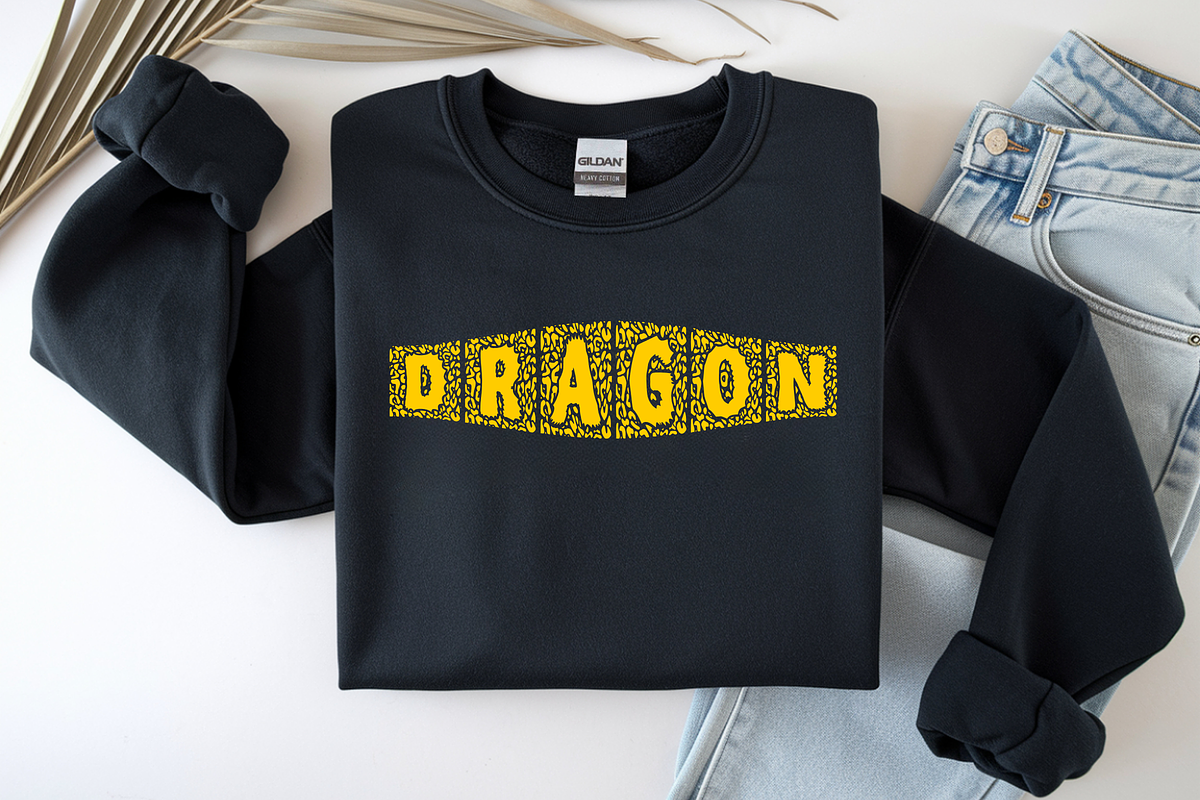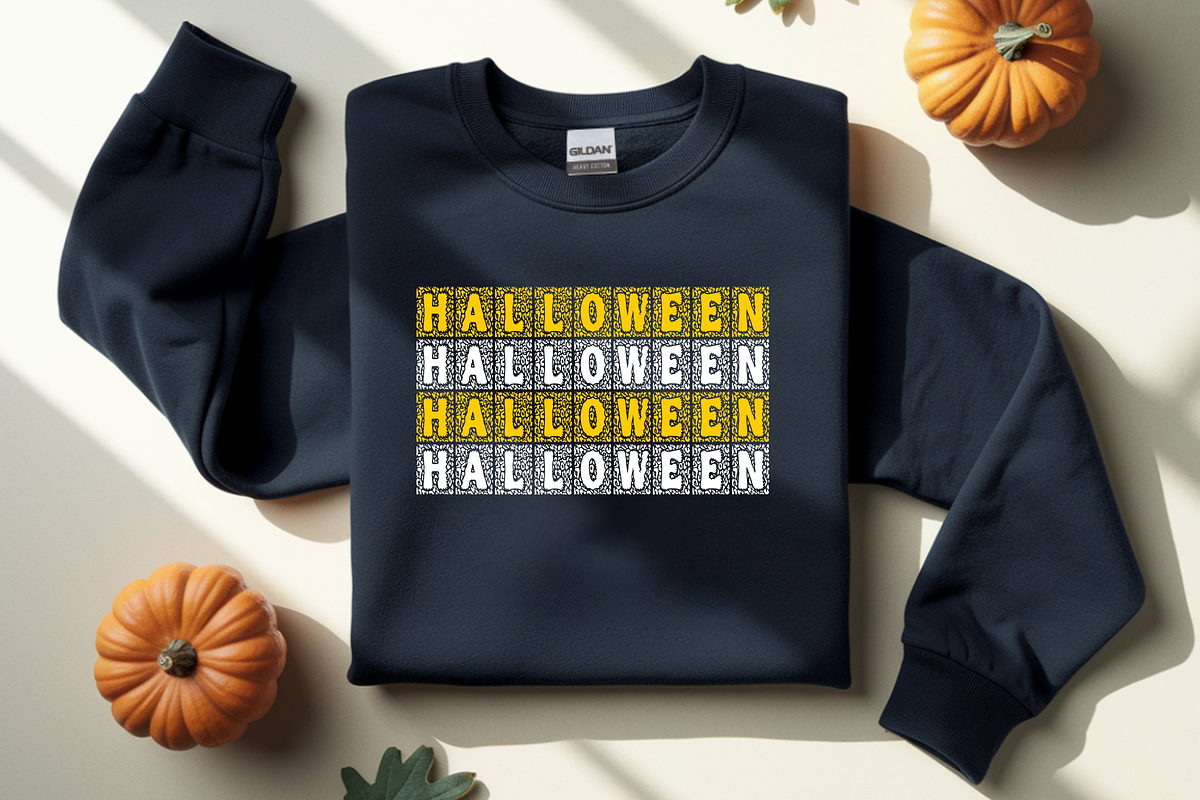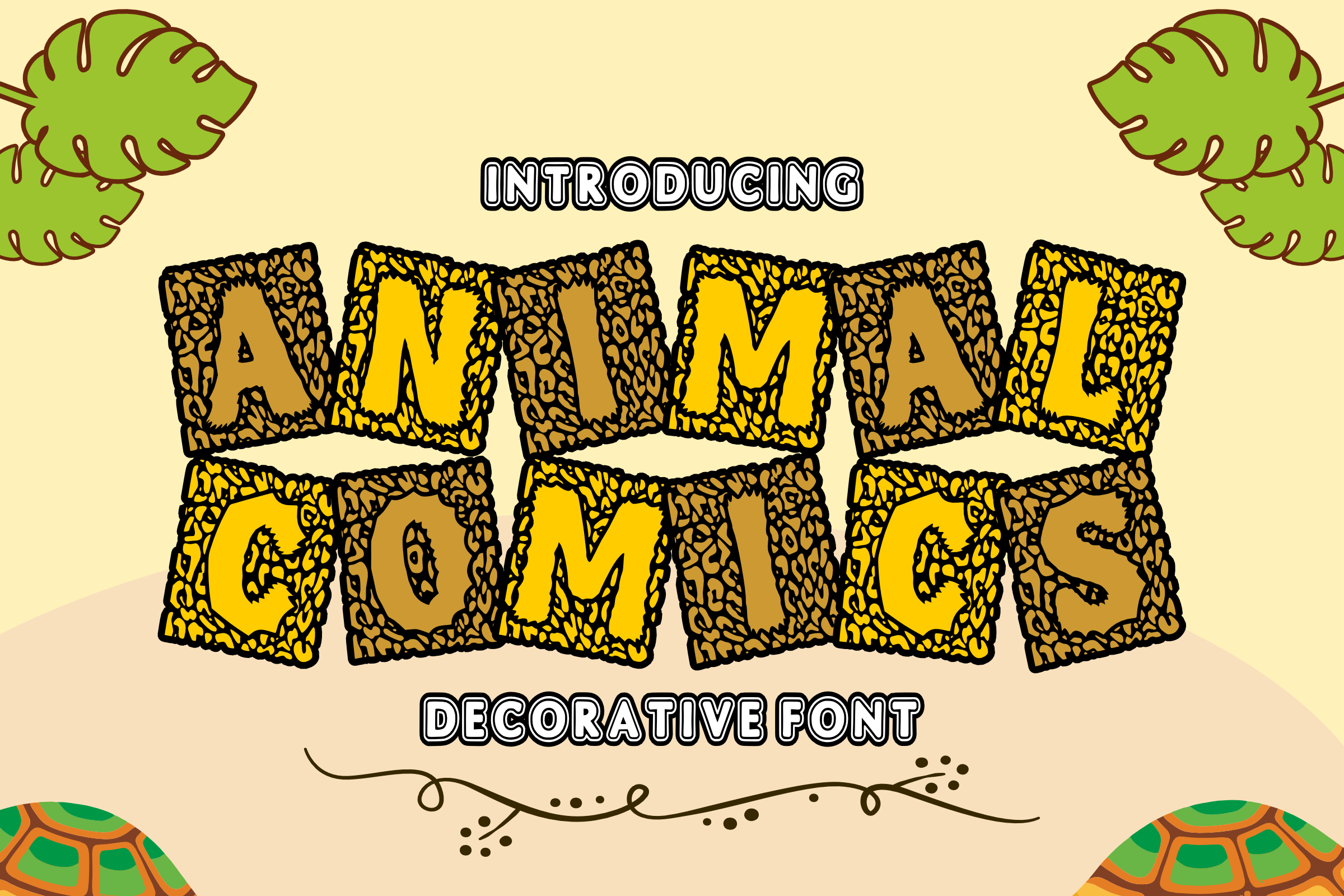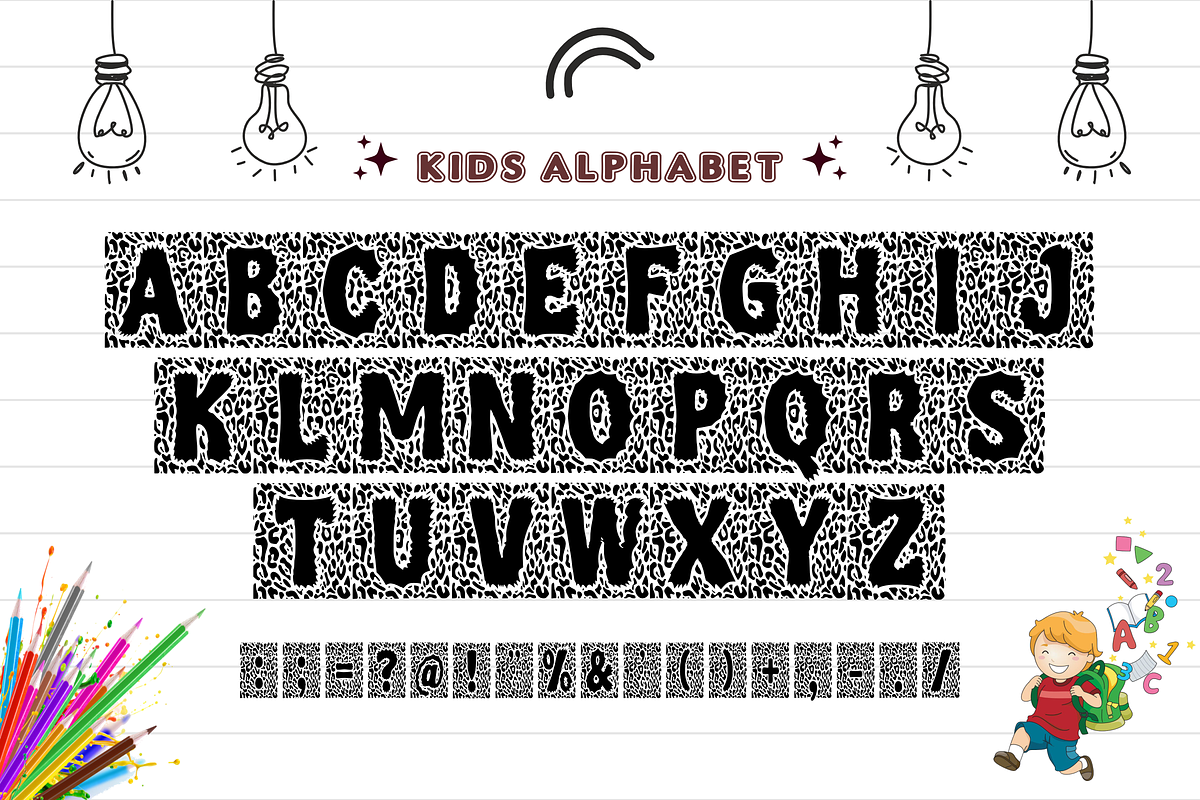
Animal Comics - Decorative Font
๐ Animal Comics โ Bold & Wild Decorative Font ๐พ Unleash the wild side of your designs! ๐ฆ
Animal Comics is a high-energy, chunky display font that brings the jungle straight to your screen. Featuring unique animal-skin patterns framed within bold, hand-drawn comic blocks, this font is designed to make your headlines roar! Itโs the perfect blend of adventurous textures and playful comic book aesthetics.
Whether you're planning a safari-themed birthday or creating eye-catching classroom materials, Animal Comics adds an instant "wow" factor to any project.
โจ Whatโs Inside: Unique Texture: Bold letters with wild animal print patterns.
Full Set: All Uppercase Letters, Numbers, and Simple Symbols.
Instant Impact: Perfect for bold titles and sticker-style designs.
๐จ Best Used For: ๐ฟ Safari & Jungle Theme Parties
๐ฆ Kidsโ Zoo & Animal Branding
๐ Comic Books & School Posters
๐ Wild Apparel & T-shirt Designs
๐ฎ Gaming & Adventure Content